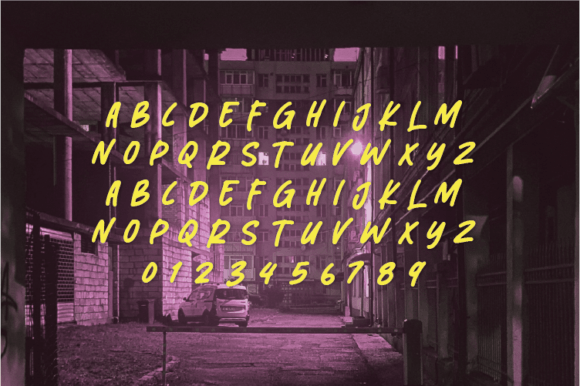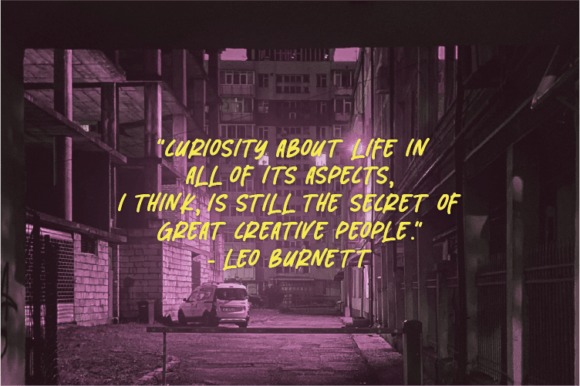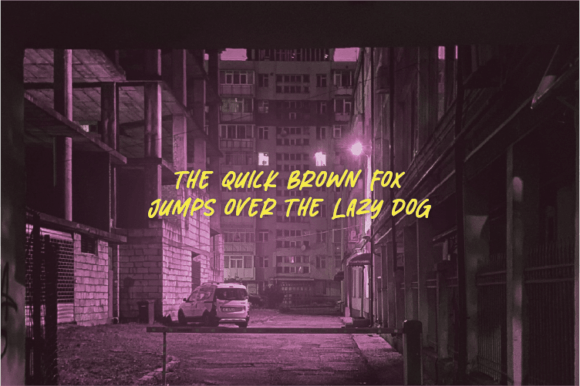
About Hyperactive Font
“Hyperactive is a natural handwritten font created without altering a single node in each character’s indentation, resulting in a font that is both interesting and unique. This typeface is perfect for quotes, notes, tees, and any product design where a natural and distinctive touch is desired.
The charm of Hyperactive lies in its handwritten and unaltered style, capturing the essence of spontaneity and individuality. This font becomes an excellent choice for designers seeking a typeface that brings a natural and energetic vibe to their projects.
Whether you’re working on quotes, casual notes, or creating a dynamic design, Hyperactive stands out as a font that enhances the overall aesthetic. Its unaltered characters add a genuine and unique quality to your text.
Imagine Hyperactive injecting a natural handwritten touch into your projects, making each character feel authentic and full of energy. Its distinctive style becomes the defining element that sets your designs apart, creating a visual experience that resonates with a lively and spontaneous atmosphere.
As you explore the nuances of Hyperactive, you’ll discover its potential to infuse a sense of natural dynamism into various projects. Let it be the font that brings a touch of spontaneity to your creative vision, making your designs stand out with a natural and unique aesthetic. With Hyperactive, every stroke becomes a brushstroke of authenticity, making it a valuable asset for designers seeking a typeface that captures the lively beauty of natural handwriting.”